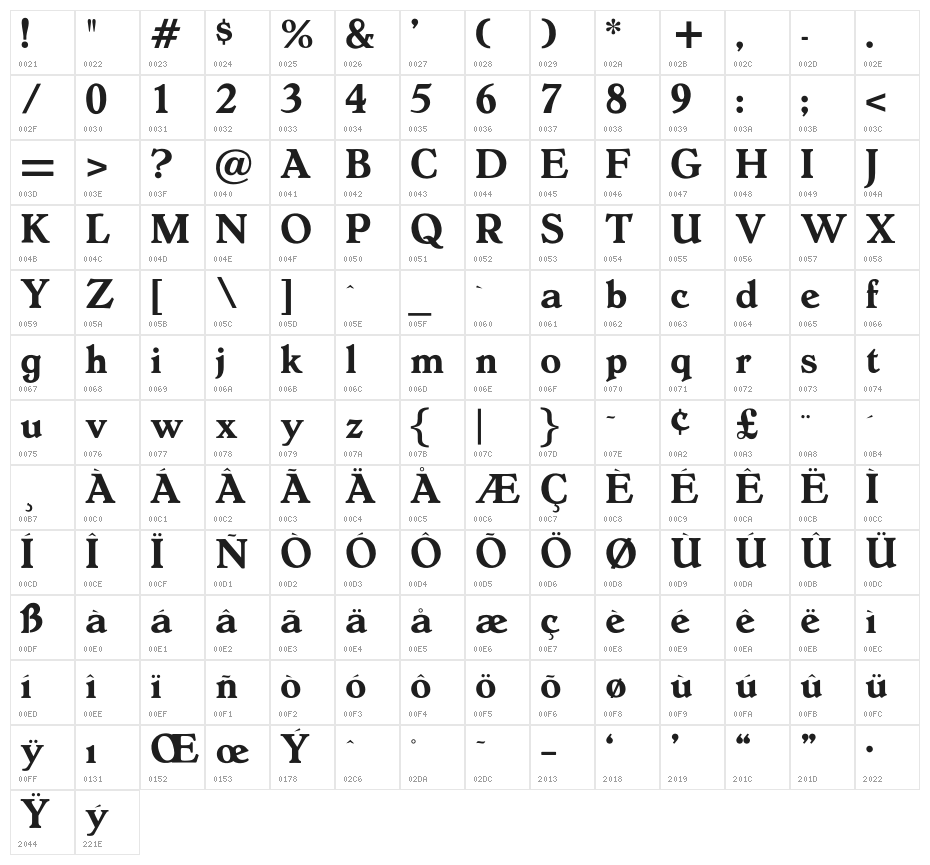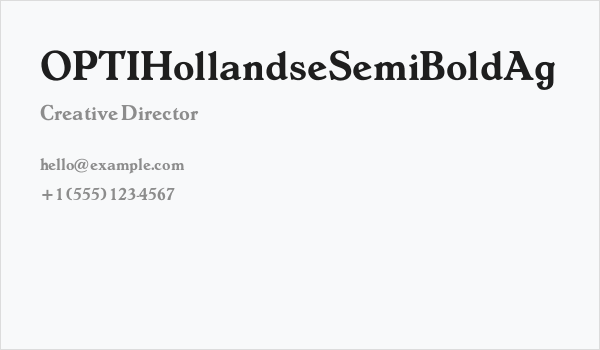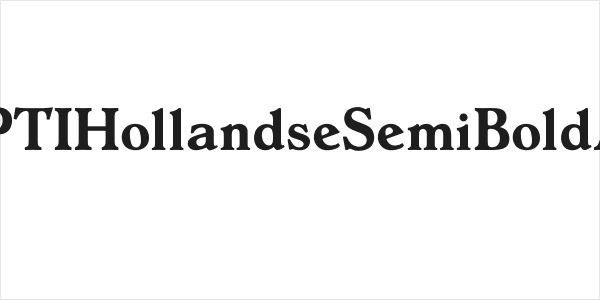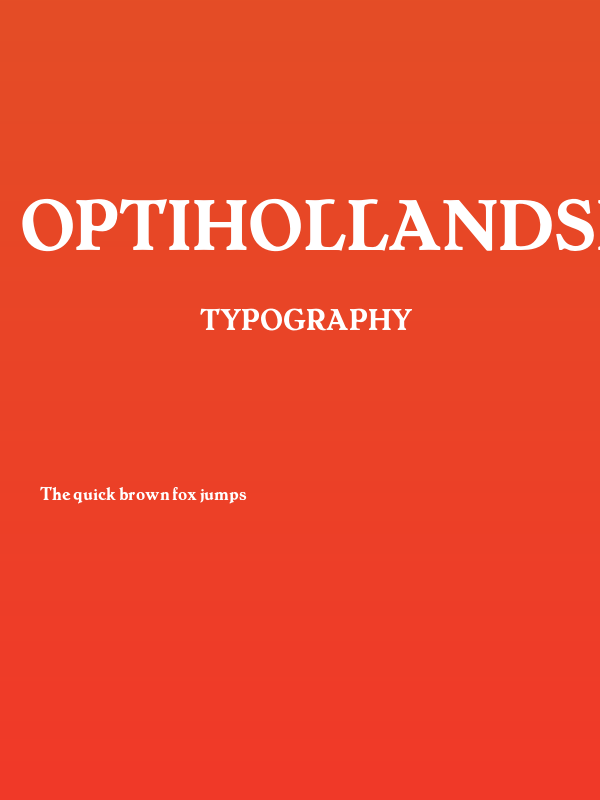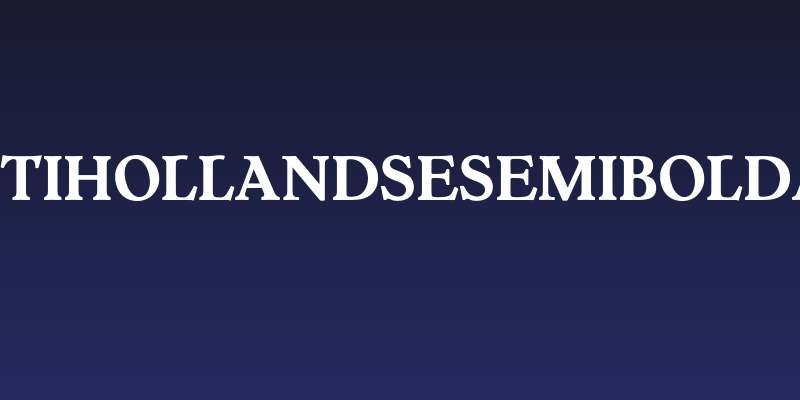
OPTIHollandseSemiBoldAg Font
OPTIHollandseSemiBoldAg Description
This font features a classic serif design with bold, pronounced strokes and a semi-bold weight. The uppercase letters exhibit a traditional and authoritative style, while the lowercase letters maintain a consistent and readable form. The numerals are clear and well-defined, making them suitable for various applications. Special characters are included, providing versatility for different types of text. The overall appearance is both elegant and robust, making it ideal for projects that require a touch of sophistication.
| Use Case | Headlines, Logos, Editorial design |
| Proposed Projects | Ideal for book covers, formal invitations, branding materials, and editorial design. |